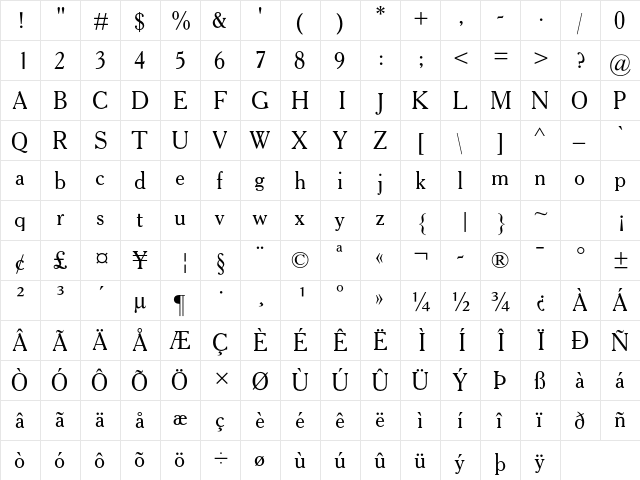
Gloucester OS MT Std Regular Font Preview
Gloucester OS MT Std Regular
Gloucester OS MT Std Regular Font Details
Design Context for Gloucester OS MT Std Typeface
Gloucester OS MT Std takes a measured approach to typography — its balanced proportions and neutral character make it a reliable workhorse for both digital and print work.